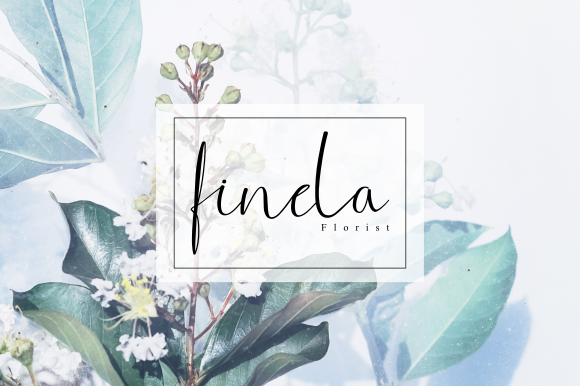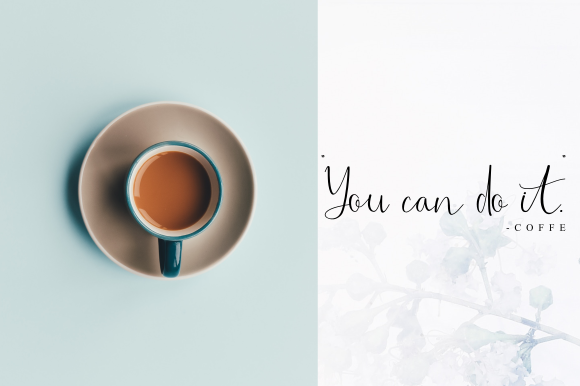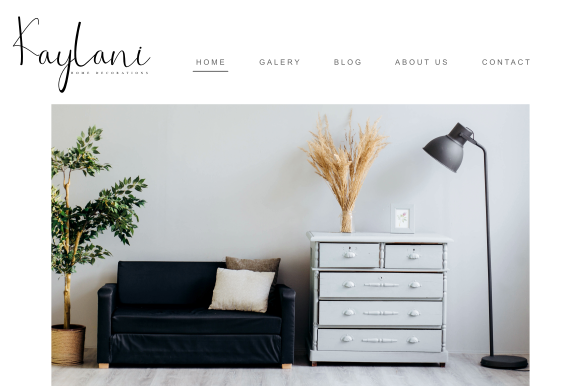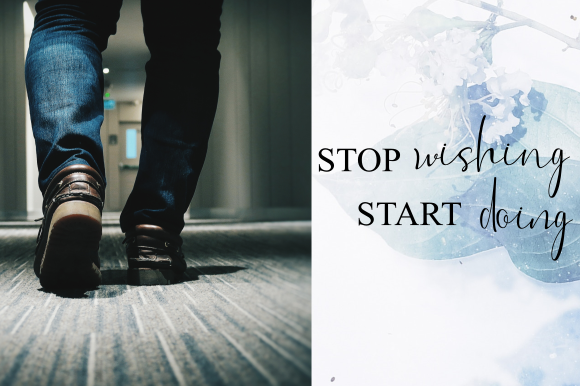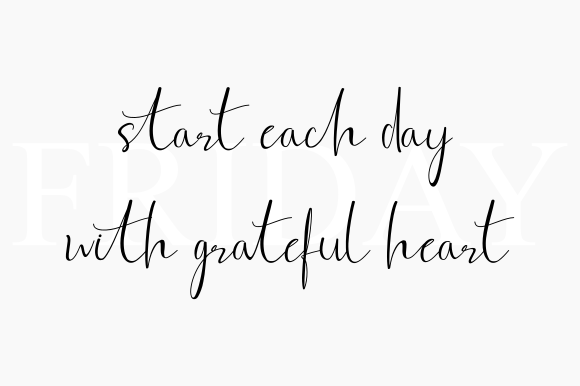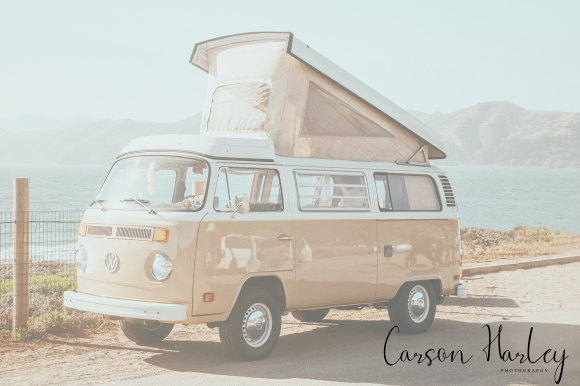
Introduction to Naily Font
Do you remember the thrill of receiving a handwritten letter from a loved one? The feeling of turning the page and seeing the unique, personal script that only they could write? That’s the magic of Naily Font, a beautiful handwritten script that adds an authentic touch to any design project. With its elegant and sophisticated feel, Naily Font is the perfect tool for designers who want to give their creations a high-quality, handmade look.
Whether you’re working on a creative project, designing a logo, or creating typography quotes, Naily Font is a valuable resource that can help you stand out from the crowd. Its transparent background makes it easy to use, and the free download option means you can get started right away. In this article, we’ll explore the world of Naily Font and show you how to use it to elevate your designs to the next level.
Naily Font
- High-quality, elegant script font perfect for creative projects
- Comes with a transparent background, ideal for layering and customization
- Font size: 1000 glyphs, ensuring a wide range of characters and symbols
- Unique characteristics: flowing lines, subtle texture, and versatile styling options
Honest Review: Naily Font
I recently had the opportunity to work with the Naily Font, and I must say it’s been a game-changer for my creative projects. This high-quality font is perfect for designers looking to add a unique touch to their work.
- ✨ High-quality design: The Naily Font is incredibly well-designed, making it a great addition to any creative project.
- ✨ Transparent background: The transparent background option is a huge plus, allowing for seamless integration with any design.
However, there are a few limitations to keep in mind. The font may not be suitable for all types of projects, particularly those requiring a more formal tone.
- ⚠️ Not suitable for all projects: The Naily Font is best suited for creative, casual projects. It may not be the best choice for formal or professional work.
Overall, I’m thoroughly impressed with the Naily Font. Its unique design and transparent background make it a valuable resource for designers. While it may have some limitations, it’s definitely worth checking out for your next creative project.
Naily Font
Tips for Getting the Most Out of Naily Font
To get the most out of the Naily Font, use it on a transparent background to create a clean and modern design. You can also use the font in combination with other design resources, such as graphics and textures, to create a unique and creative project.
The Naily Font is commonly used in creative projects, such as logos, business cards, and brochures. It is also used in design projects that require a high-quality, modern font with a transparent background.
Pacifico Font is a beautiful, high-quality script font that is perfect for creative projects that require a touch of elegance and sophistication. It features a transparent background and is available for free download. When to use: For wedding invitations, event promotions, and other creative projects that require a romantic and luxurious feel. Comparison: Pacifico Font has a more cursive and flowing feel compared to Naily Font, making it ideal for projects that require a sense of drama and flair.